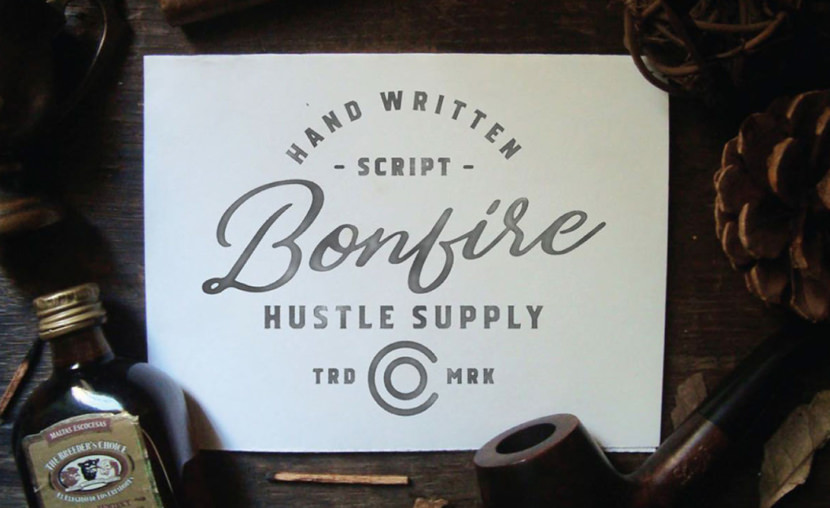
What does your handwriting say about you? Having a strong brand is all about making your mark on the minds of your customers – and having a ‘signature’ font can give them a great insight into your brand’s personality.
1. Wildera Font by Lauren Lee
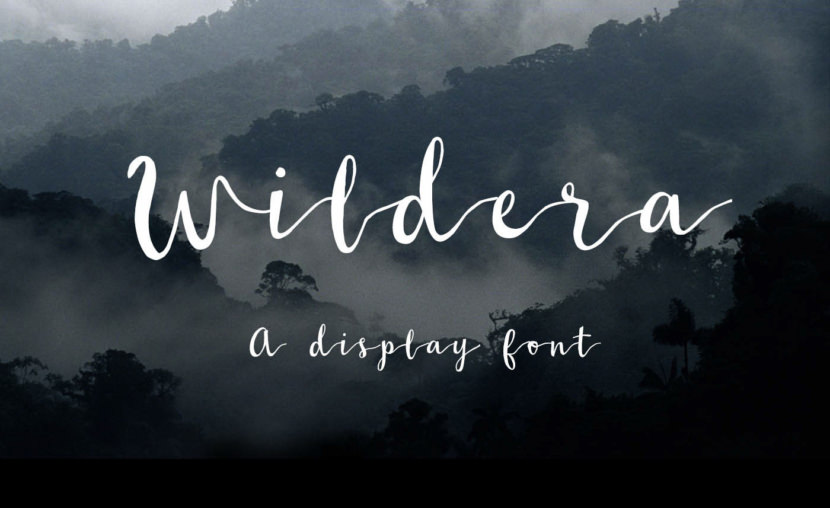
Wildera is a free typeface inspired by my personal calligraphy work. With a ton of working and reworking, the final design includes connected characters, playful up-and-downs, and uneven edges. Hope you enjoy!
2. Westfalia by Pixel Surplus
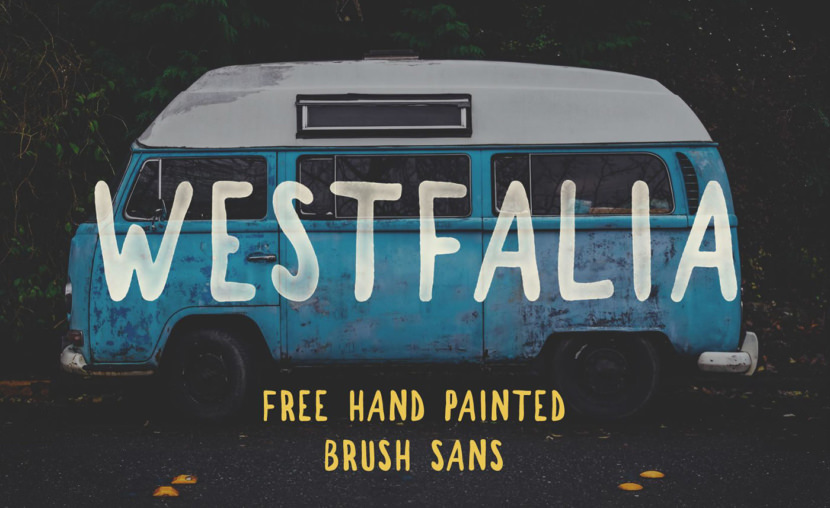
Westfalia is a hand painted brush sans from Rambler Creative. This font provides an authentic hand drawn feel with its messy edges and varied line thickness. Great for any design work related to the outdoors and exploration.
3. Wild Youth by Pixel Surplus and Jeremy Vessey
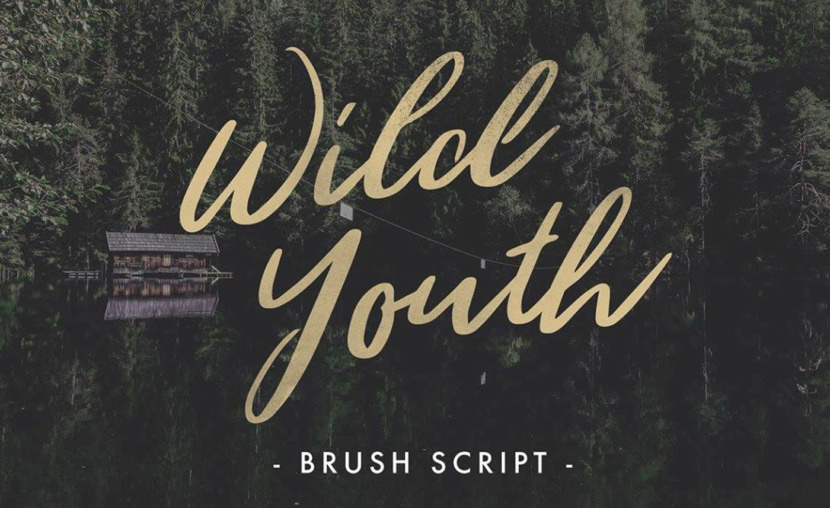
Wild Youth is another beautiful hand drawn brush script font from Jeremy Vessey. Wild Youth is a modern font with the distinct influence of adventure and the great outdoors. Perfect for logos, quotes, stationary, apparel and much more
4. King Basil by Mats-Peter Forss and Missy Meyer
Introducing the new lovely Beautiful Bloom Typeface. It’s authentically handlettered font with full alternates (upper and lowercase). Designed to work perfectly in multiple designs like wedding invitations, website logos, Instagram posts and many many more.
5. Mightype Script by Adam Fathony and Mats-Peter Forss
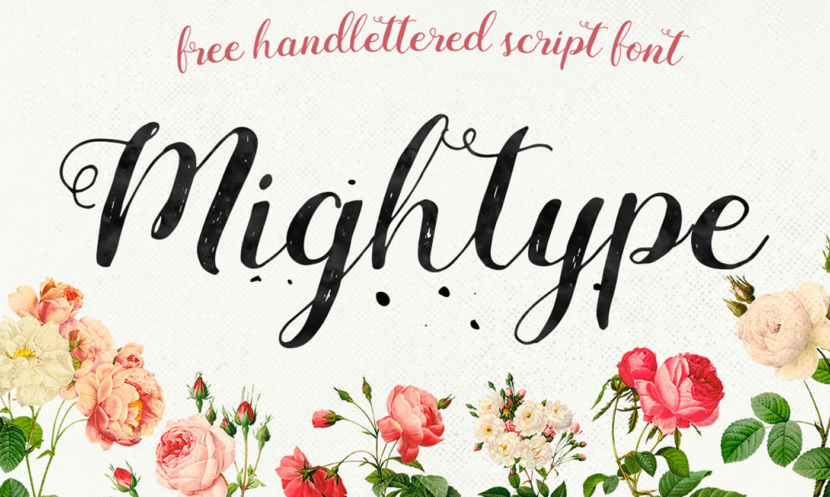
We’re introducing a new and amazing handlettered script font freebie that you have only dreamed of :) This font is part of a premium product, so it’s guaranteed to run with the highest quality. Mightype is created by the professional font factory AF Studio. They have produced many best-selling fonts at Creative Market. I (Mats-Peter Forss) have added a few more mockups to show how you can play around with this free font.
6. Selima by Jroh Creative
7. Sophia by Mats-Peter Forss and Emily Spadoni
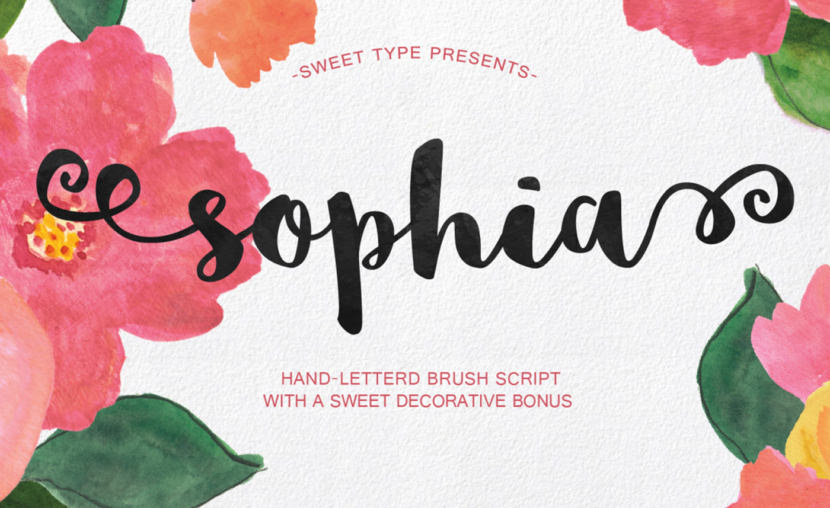
Here comes the fresh free font Sophia, a handlettered script font made by the super-talented Emily Spadoni. This font is sweet, saucy, and a little shabby. A new hand-lettered brush style typeface. Mats-Peter Forss made the “Never Stop Believing” poster with this font! Isn’t this font amazing!?
8. Stay Writer Free Handwriting Font by Syed Faraz Ahmad
This font is in Upper & Lower case and it includes numbers, special characters and few symbols. They have created it with a imperfect flow that will give your text a unique & natural look.
9. Cartel Deux Typeface by Firman Suci Ananda and wahyu pribadi
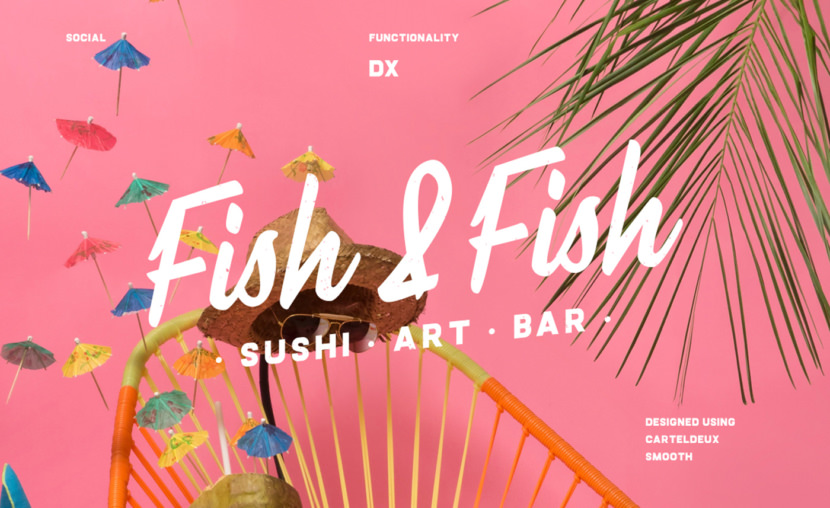
Introducing Cartel Deux Script Font Family! Cartel Deux Script designed and shared by CartelDeux™. Cartel Deux is a new typeface by Cartel Deux™. The combinations fonts include a script and bold style and also have a different style between Smooth & Sharp Script. To complete the set of fonts, Cartel Deux offers 5 style in the family.
10. Yunus Handwriting by Creative Tacos
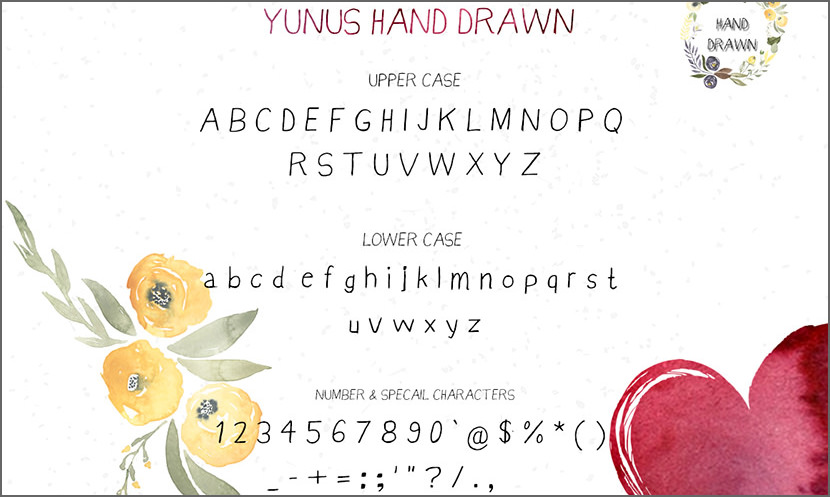
Yunus Handwriting is a hand drawn display font, every single letter has been carefully crafted to make your text look beautiful. With massive number of glyph will perfect for many different project ex: quotes, blog header, poster, wedding, branding, logo, fashion, apparel, letter, invitation, stationery, etc.
11. Smoothie Shoppe Free Script Font by Mats-Peter Forss and Emily Spadoni
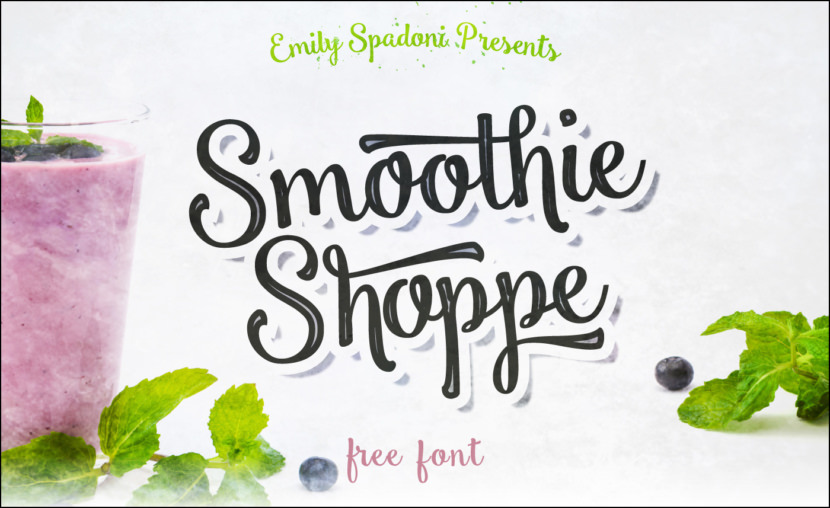
I made these preview images for Emily Spadoni’s free font, Smoothie Shoppe. It’s a great and super flexible font that is available for free download! It comes with a lot of features, punctuations and with some really unique connecting letters with swooshes. Check out the preview images to see what you can achieve with this font and appreciate the project if you like it :)
12. Debby by Artimasa Studio and Free Design Resources
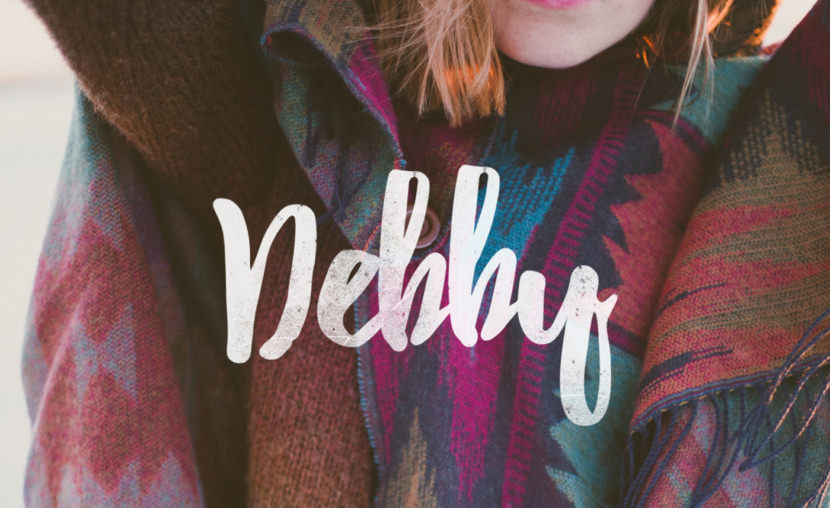
Debby is a hand-drawn brush typeface to make your works look natural. It is designed to feel personal and imperfect; the irregular bouncy characters and the rough shapes speak by itself. You can use it for anything from wedding invitation, quote poster, logo, greeting cards, etc.